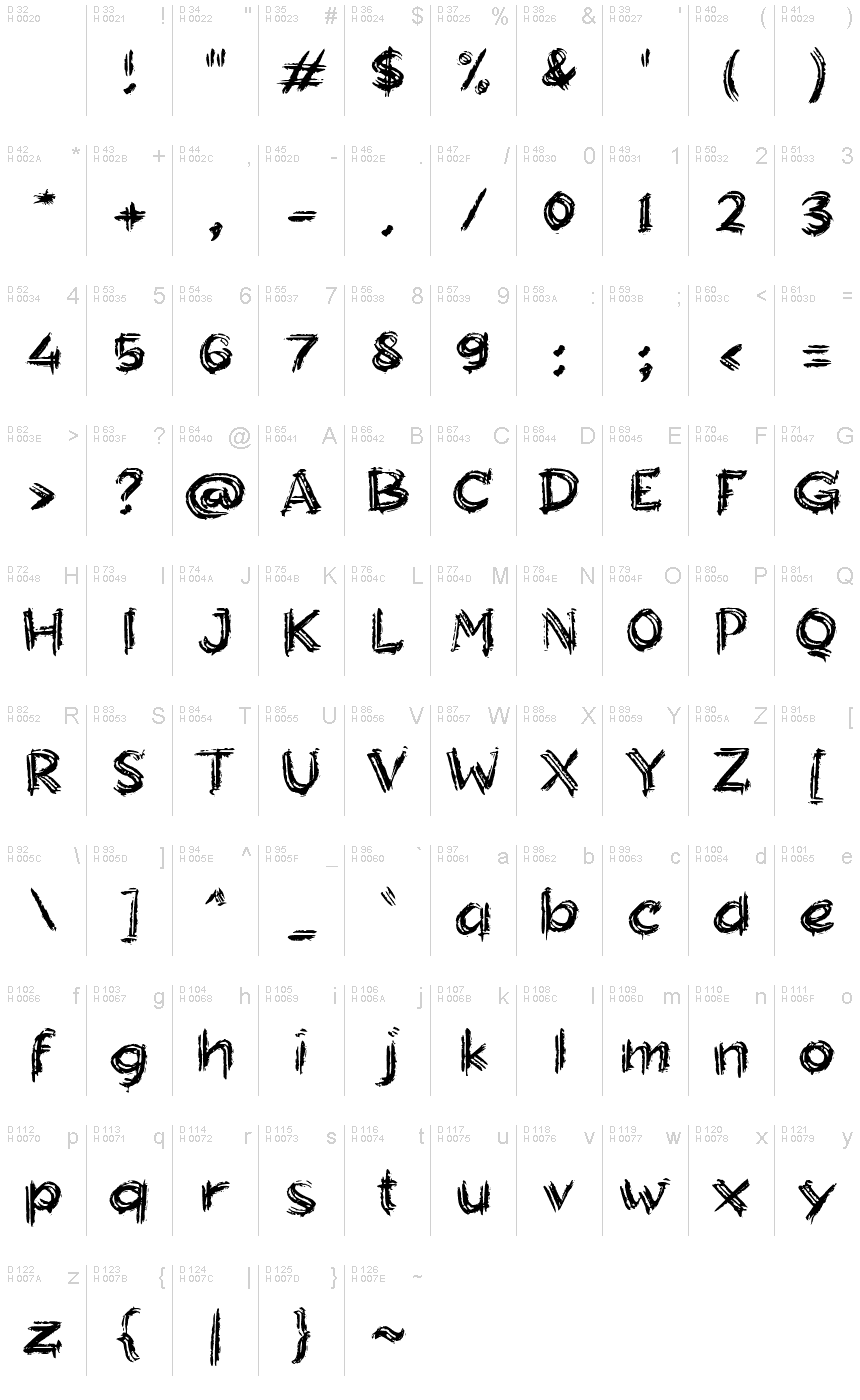
Darah Revolusi, designed by Wahyu Eka Prasetya, is a bold and wide script font with a trash style. It's perfect for creative projects such as web design and logos that require an edgy look.
Darah Revolusi
Wahyu Eka Prasetya